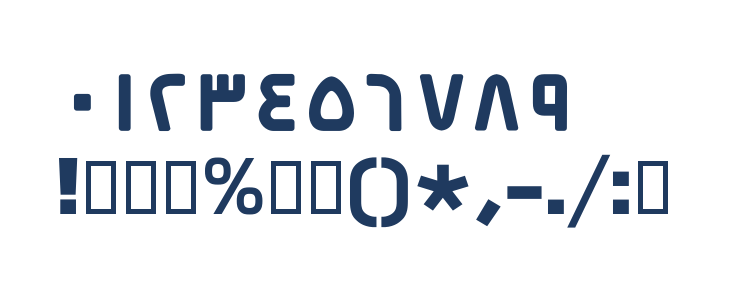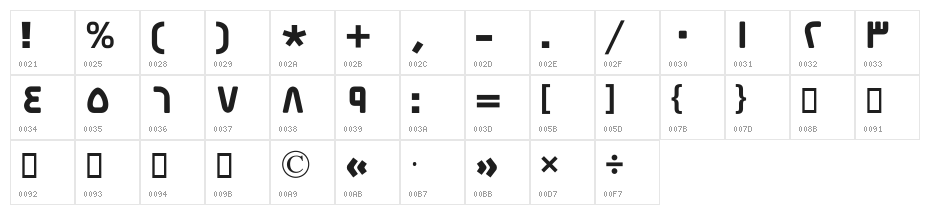
Imaan Font
Imaan Description
This font features a modern and geometric design with a strong emphasis on clean lines and bold shapes. The characters are uniformly structured, providing a consistent and cohesive appearance. The uppercase and lowercase letters maintain a similar width, contributing to a balanced and harmonious look. Numbers and special characters are designed with the same geometric precision, ensuring readability and visual appeal. The font's style is suitable for contemporary design projects, offering a sleek and professional aesthetic.
A modern, geometric font with clean lines and bold shapes from Uncategorized fonts.
- Proposed Projects: Ideal for branding, digital media, advertising, and modern web design projects.
- Use Case: Headlines, Logos, Digital Media